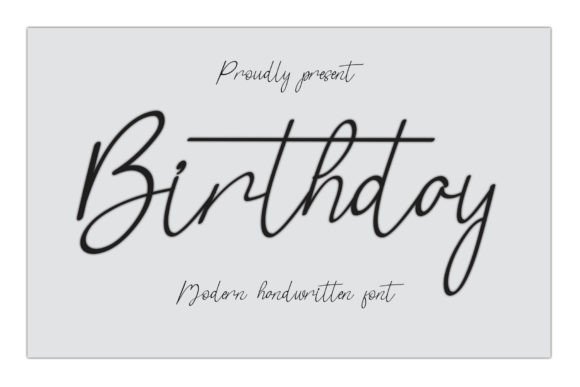
The Perfect Font for Special Moments: Birthday Font
Do you remember the first time you saw a handwritten card that truly made your heart skip a beat? For me, it was a handmade birthday card from a loved one, with a sweet message written in a beautiful, flowing script. That moment sparked a passion for creating unique and special designs, and it’s a feeling that many of us designers can relate to.
That’s why we’re excited to introduce you to the Birthday Font, a sweet and friendly handwritten font that’s perfect for adding a touch of warmth to your designs. Whether you’re creating wedding invitations, birthday cards, or any other design that needs a personal touch, this font is sure to bring a smile to your face and a sense of joy to your clients.
Birthday Font Key Features
- Font Style: A playful, cursive font with swashes and flourishes, perfect for birthday invitations and celebrations.
- Unique Characteristics: Includes a range of swashes, flourishes, and ornaments to add a personal touch to birthday designs.
Birthday Font Review
Overall, I’m quite impressed with the Birthday Font. It’s a fun and playful typeface that captures the essence of celebrations and special occasions. Here are some of the things that work well: ✨
- Unique and creative design: The font has a distinctive look that sets it apart from more generic, run-of-the-mill fonts.
- Perfect for birthday invitations and party decorations: The font is ideal for creating eye-catching invitations, posters, and other party materials.
- Works well with bold and bright colors: The font’s playful nature is amplified when paired with bold, bright colors.
- May not be suitable for formal events: While the font is perfect for casual celebrations, it may not be the best choice for more formal events, such as weddings or anniversaries.
- Not as versatile as other fonts: The font’s playful nature may make it difficult to use in situations where a more serious or professional tone is required.
Overall, I’d give the Birthday Font a solid 4 out of 5 stars. It’s a great choice for anyone looking to add some fun and personality to their celebrations. Just be aware of its limitations and use it accordingly.
For the best results, use the Birthday Font in conjunction with bright and colorful graphics to create eye-catching designs. Common use cases include:
– Birthday invitations and party decorations
– Social media posts and ads
– Personalized birthday cards and gifts
– Party banners and signs
Alternatives to Birthday Font for Designers
Great Vibes is a modern, cursive script font that can be used for various design projects, including birthday invitations and greeting cards. It is suitable for creating a whimsical and playful atmosphere. In comparison to Birthday Font, Great Vibes has a more elegant and refined look, making it a better choice for high-end designs.
Coolvetica
Coolvetica is a sans-serif font that resembles a retro-style font. It is ideal for designs that require a fun, casual, and laid-back tone. Unlike Birthday Font, Coolvetica has a more straightforward and modern look, making it suitable for a wide range of design projects, from birthday invitations to social media graphics.
Pacifico is a beautiful, cursive script font that is perfect for creating a warm and inviting atmosphere. It is suitable for designs that require a sense of elegance and sophistication. In comparison to Birthday Font, Pacifico has a more refined and sophisticated look, making it a better choice for high-end designs and special occasions.
Q: What is the recommended font size for using the Birthday Font in designs?
The recommended font size for using the Birthday Font in designs is between 12pt and 24pt. This size range allows for optimal readability and legibility, making it perfect for invitations, greeting cards, and other celebratory designs.